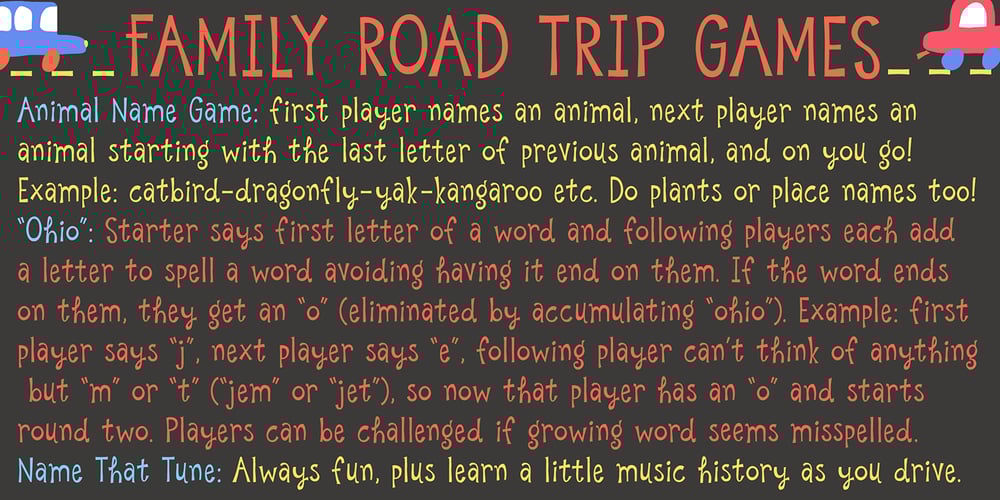
Catbird Font Family was designed by Amy Dietrich and published by Atlantic Fonts. Catbird contains 1 styles and family package options. Friendly and spontaneous, Catbird loves to have fun. Catbird approaches life with undaunted exuberance and adds a delightful and curious energy to every project.